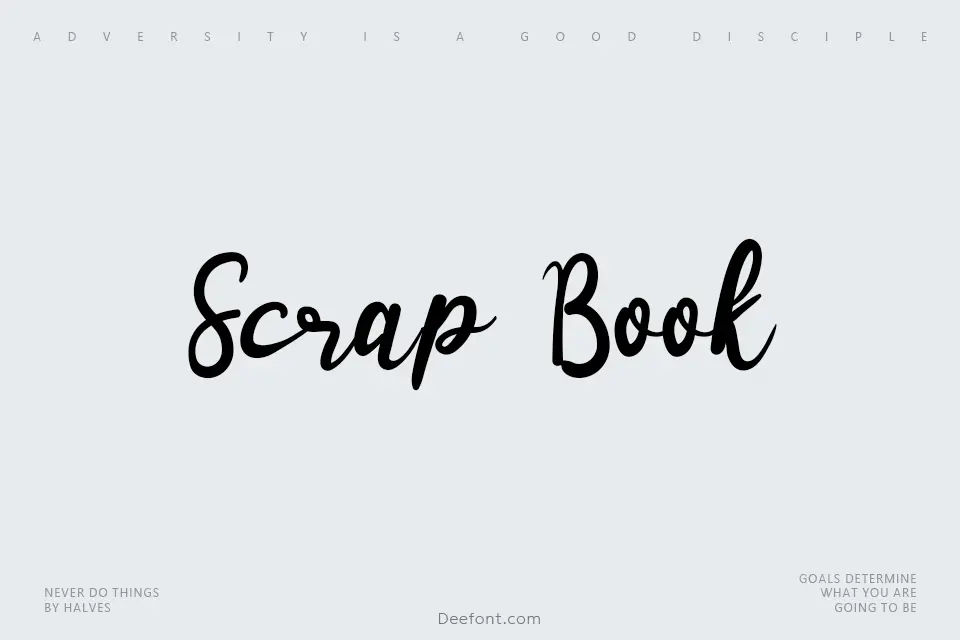
Scrap Book Font
Scrap Book is a charming and playful handwritten font designed by Giart Studios. Its uneven, bouncy characters mimic the authentic feel of hand-lettered notes found in personal journals. This typeface adds a whimsical touch to DIY crafts, poster designs, and greeting cards. Perfect for projects requiring a casual, crafty aesthetic, it captures the nostalgia of memory keeping.